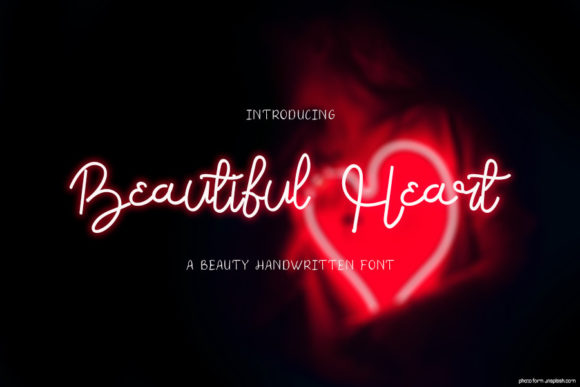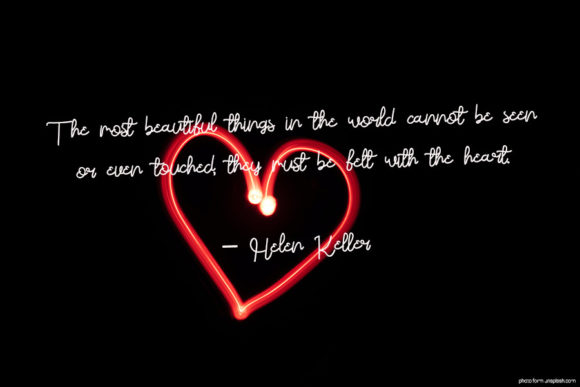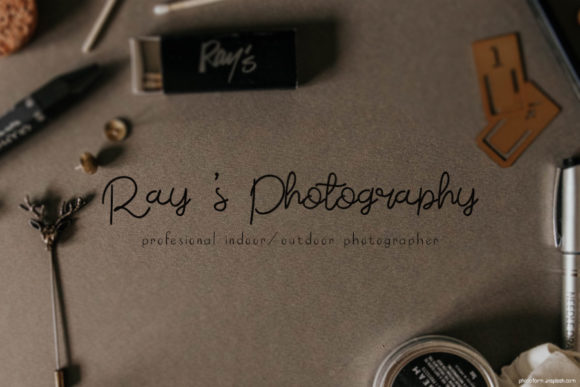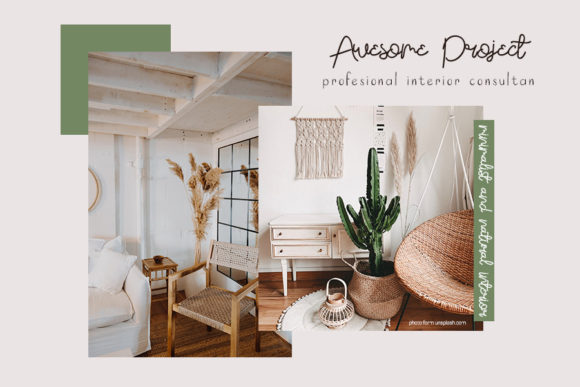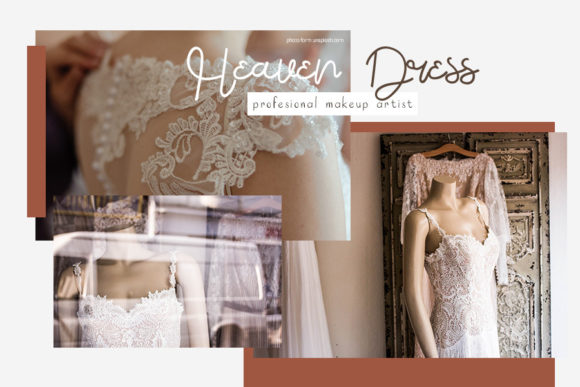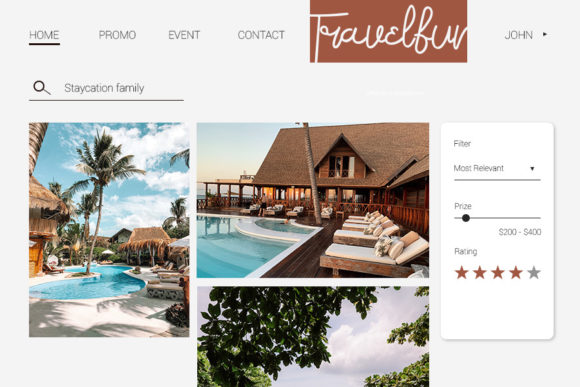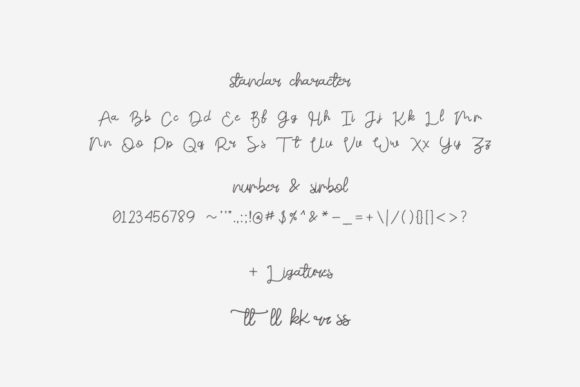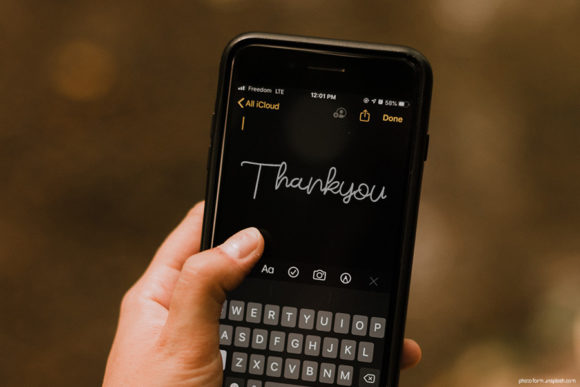
Beautiful Heart Font
Beautiful Heart is a sweet and timeless handwritten font. It is the best choice for creating eye-catching logos, branding, and quotes. Every letter has a unique and beautiful touch, which will make your designs come alive!